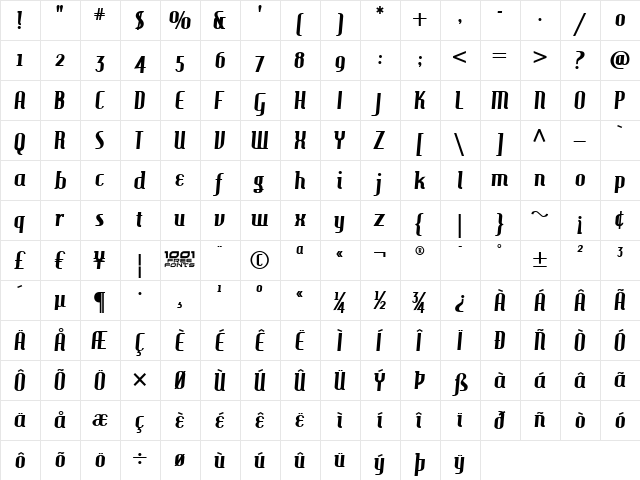
Hamburger Heaven NF Regular
| Foundry | Nick's Fonts |
| Designer | Nick Curtis |
Design Context for Hamburger Heaven NF Typeface
Hamburger Heaven NF is a composed and adaptable typeface that performs quietly and consistently across a wide range of design contexts.